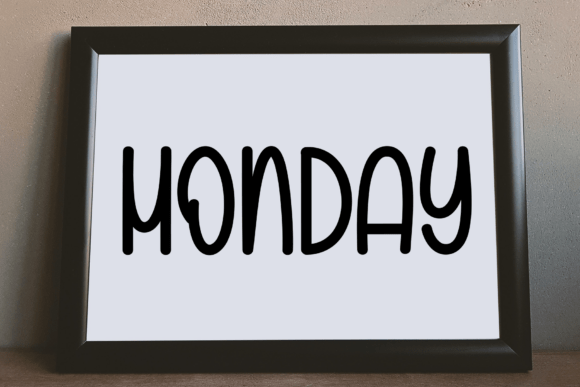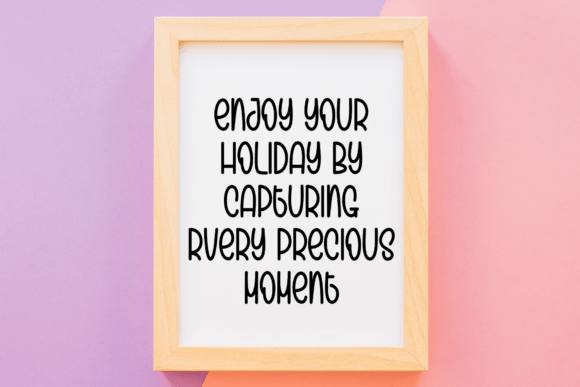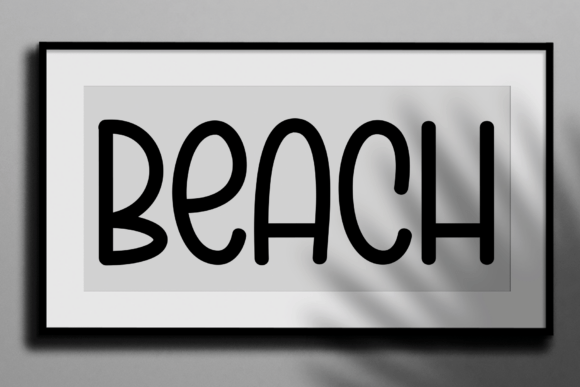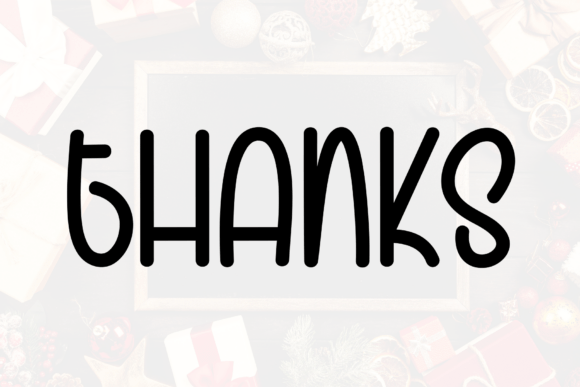
Introducing Birthday Style Font: The Perfect Choice for Your Design Projects
Are you looking for a font that can add a touch of warmth and personality to your design projects? Look no further than Birthday Style Font, a charming handwritten font that is filled with a sense of heartfelt perfection. With its smooth strokes and organic lines, this font is perfect for creating a relaxed atmosphere that will make your designs stand out.
What Makes Birthday Style Font So Special?
Birthday Style Font is a unique and versatile font that is perfect for a variety of design projects. Whether you’re working on branding, invitations, or social media graphics, this font is sure to impress. Its smooth strokes and organic lines give it a natural and effortless look that is sure to capture the attention of your audience.
One of the things that sets Birthday Style Font apart from other fonts is its ability to evoke a sense of warmth and personality. This font is not just a collection of letters and numbers – it’s a way to add a personal touch to your designs and make them feel more approachable and relatable.
The Benefits of Using Birthday Style Font
There are many benefits to using Birthday Style Font in your design projects. Here are just a few:
- Unique and Memorable: Birthday Style Font is a one-of-a-kind font that will help your designs stand out from the crowd. Its unique and memorable style is sure to leave a lasting impression on your audience.
- Versatile: This font is perfect for a variety of design projects, from branding and invitations to social media graphics and more.
- Easy to Read: Despite its unique style, Birthday Style Font is easy to read and understand, making it perfect for designs that require a lot of text.
- Customizable: With its smooth strokes and organic lines, Birthday Style Font is easy to customize and modify to fit your design needs.
How to Use Birthday Style Font in Your Design Projects
Using Birthday Style Font in your design projects is easy. Here are a few tips to get you started:
- Pair it with Other Fonts: Birthday Style Font pairs well with a variety of other fonts, so don’t be afraid to experiment and find the perfect combination for your design.
- Use it for Headings and Titles: This font is perfect for headings and titles, where its unique style can really shine.
- Add it to Your Branding: If you’re looking for a way to add a personal touch to your branding, Birthday Style Font is a great choice.
Design Project Ideas Using Birthday Style Font
Birthday Style Font is perfect for a variety of design projects, including:
- Invitations: Use Birthday Style Font to create beautiful and unique invitations for parties, weddings, and other special events.
- Branding: Add a personal touch to your branding with Birthday Style Font, perfect for logos, business cards, and more.
- Social Media Graphics: Use this font to create eye-catching social media graphics that will help your brand stand out.
- Stationery: Add a touch of elegance to your stationery with Birthday Style Font, perfect for letters, cards, and more.
In conclusion, Birthday Style Font is a charming handwritten font that is perfect for designers and crafters looking to add a touch of warmth and personality to their design projects. With its smooth strokes and organic lines, this font is sure to evoke a relaxed atmosphere that will make your designs stand out. Whether you’re working on branding, invitations, or social media graphics, Birthday Style Font is a great choice.